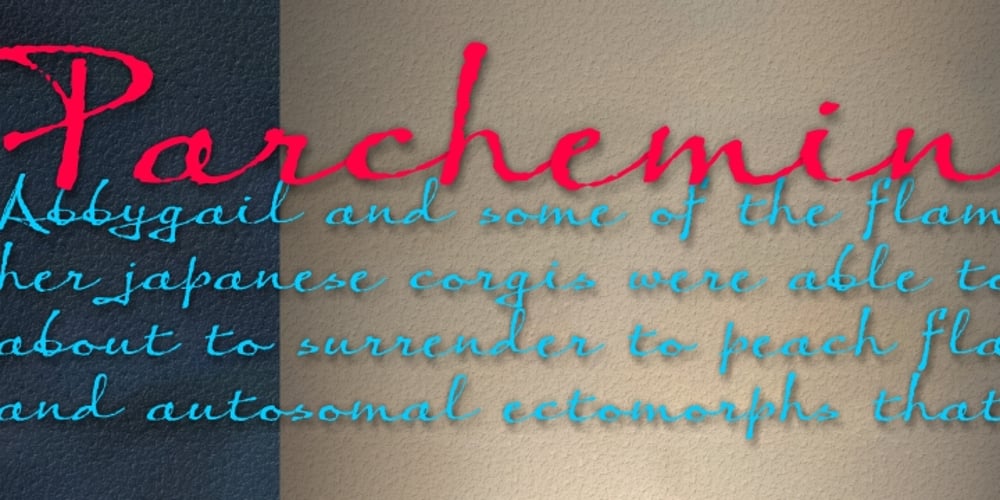
Parchemin Font Family was designed by Anton Scholtz and published by Scholtz Fonts. Parchemin contains 2 styles and family package options. The name “Parchemin” is derived from the word in old English for “parchment.” Our modern word “parchment” changed its spelling to conform with French spelling practices during the French occupation of England. The font was created to suggest an informal but antique form of handwriting written on parchment with a quill pen. The scratchiness of the old quill pen is conveyed in the roughness of the characters. The font was loosely based on the font Queen. Use this font whenever you want to suggest rough informality or antique handwriting. The characters have been letter-spaced and kerned in such a way that they join perfectly with one another giving a completely convincing imitation of genuine handwriting. The font is fully professional in terms of its character set. It contains more than 235 characters — (upper and lower case characters, punctuation, numerals, symbols and accented characters are present). In fact, it has all the accented characters used in the major European languages.